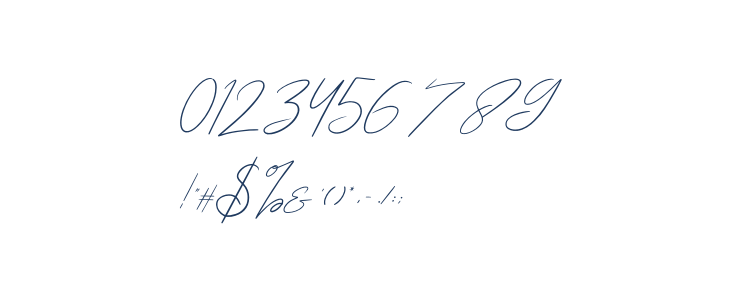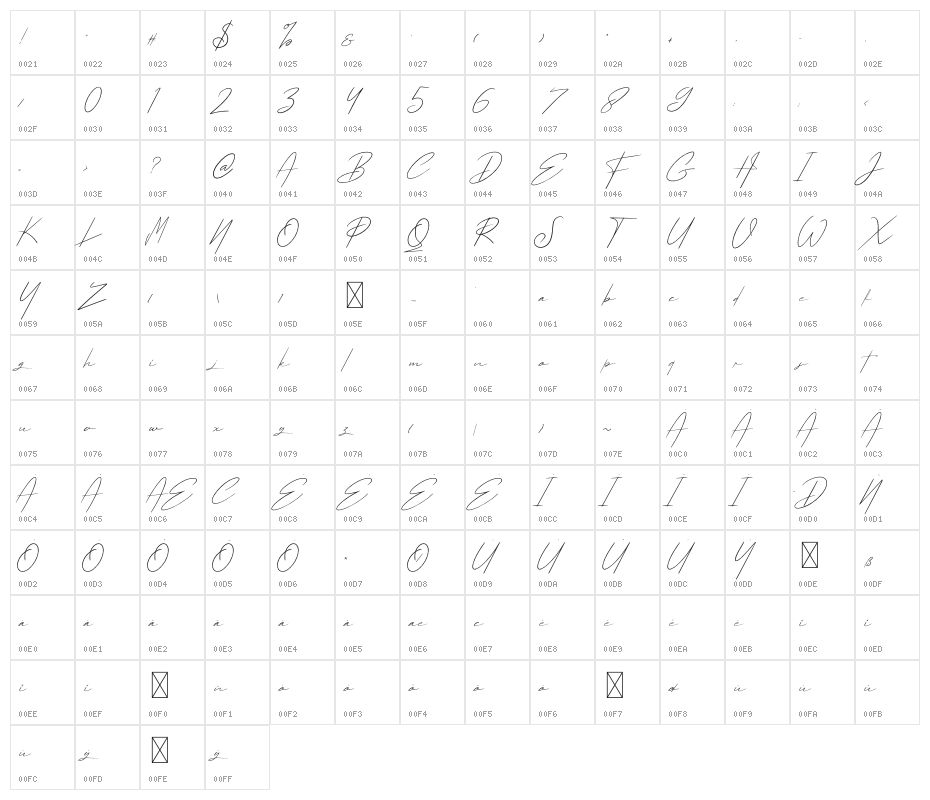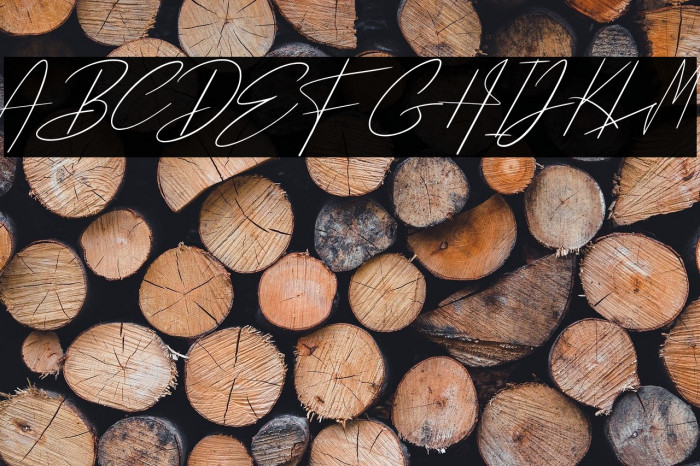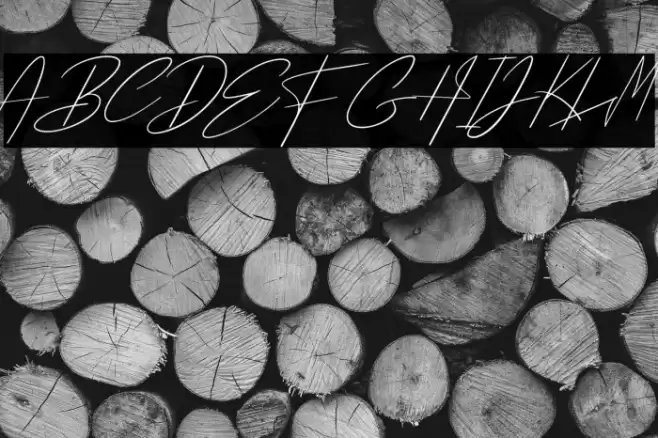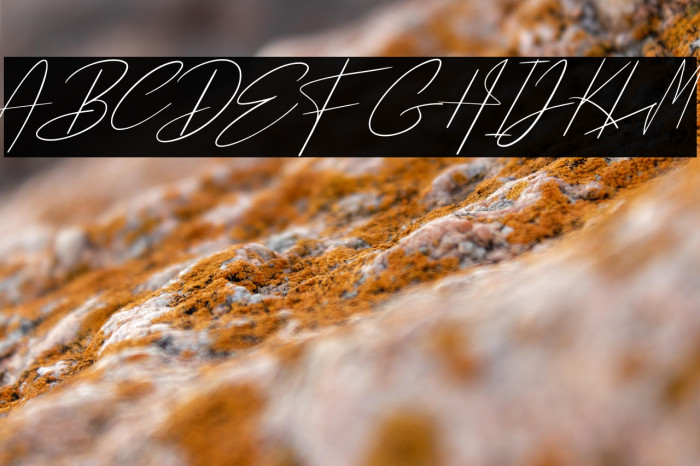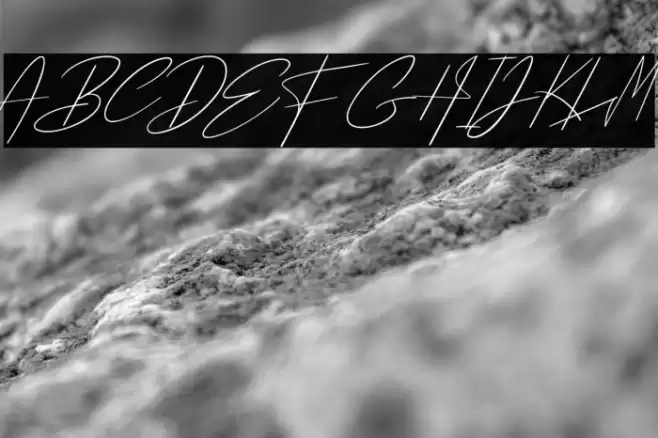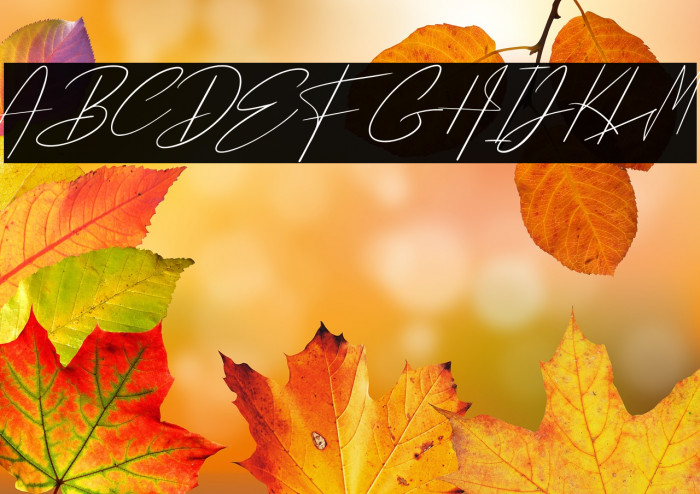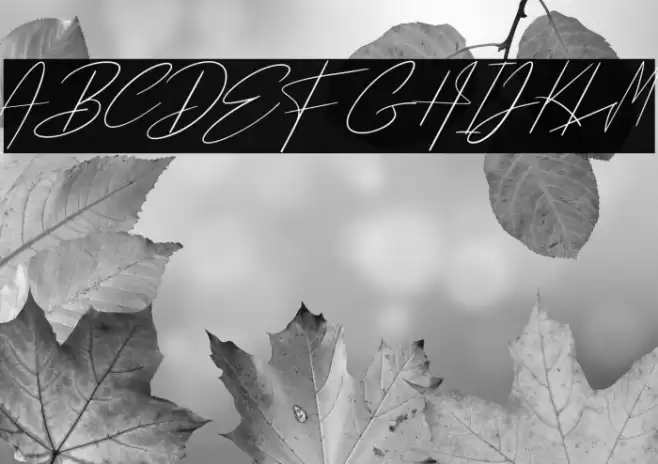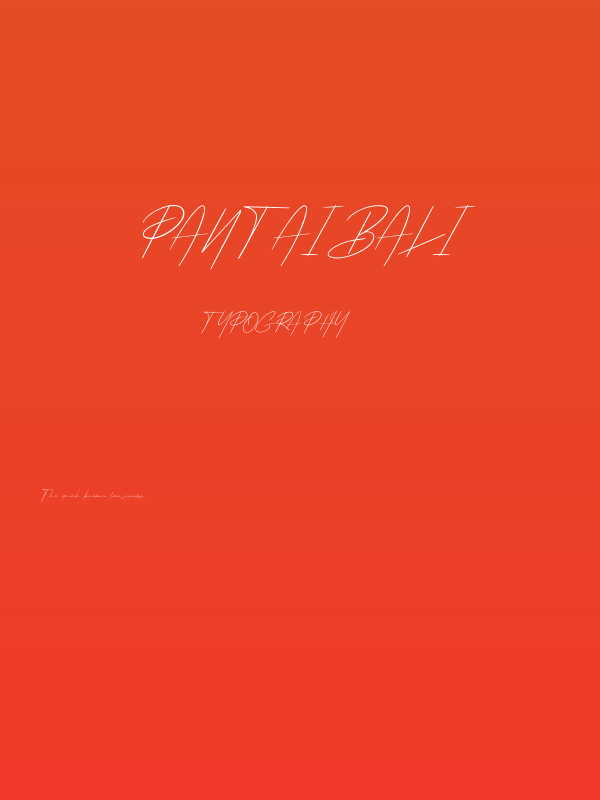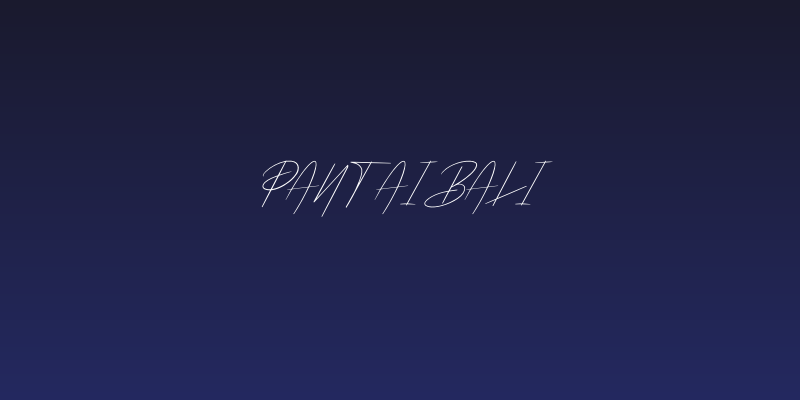
Pantai Bali Font
Pantai Bali Description
This font exudes a fluid and elegant handwritten style, characterized by its thin, flowing strokes and a sense of movement that mimics natural handwriting. The letters are connected in a cursive manner, giving it a cohesive and continuous appearance. The uppercase letters are tall and slender, while the lowercase letters maintain a consistent flow with slight variations in height and slant. The numerals and special characters are designed to match the overall aesthetic, maintaining the same delicate and graceful lines. This font is perfect for adding a personal touch to any project, with its sophisticated yet approachable style.
Overall StyleElegant, Handwritten
Use CaseLogos, Invitations, Personal Branding
Proposed ProjectsIdeal for wedding invitations, personal branding, greeting cards, and elegant stationery.